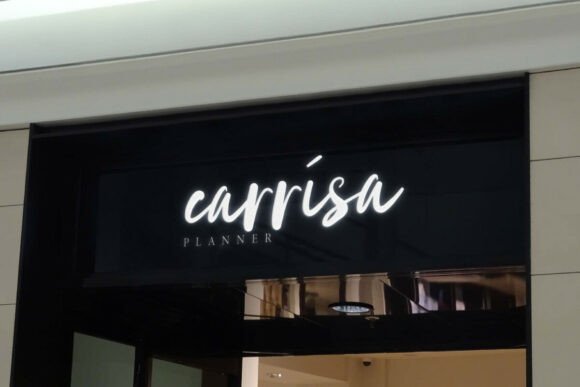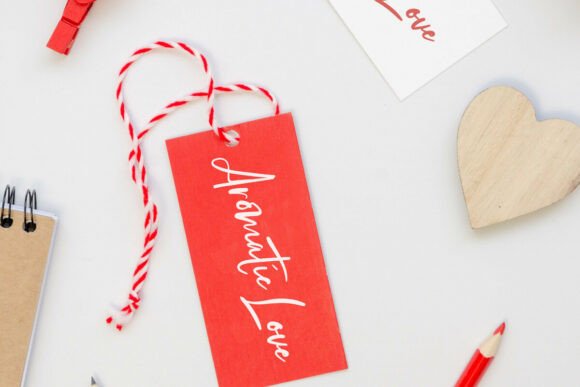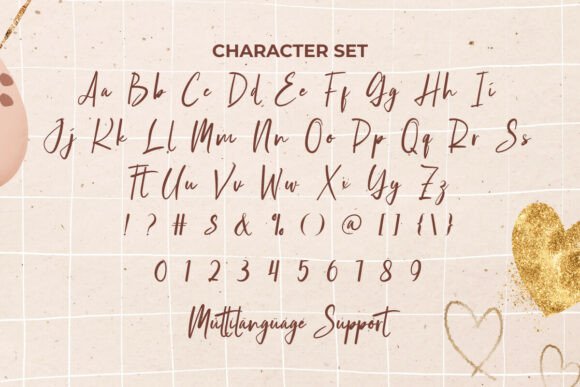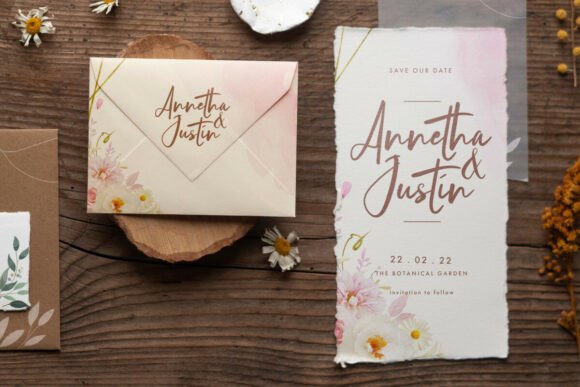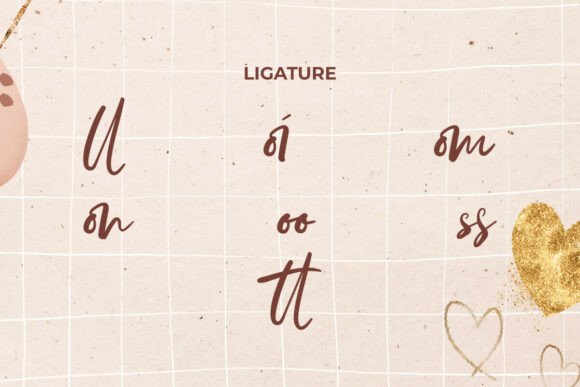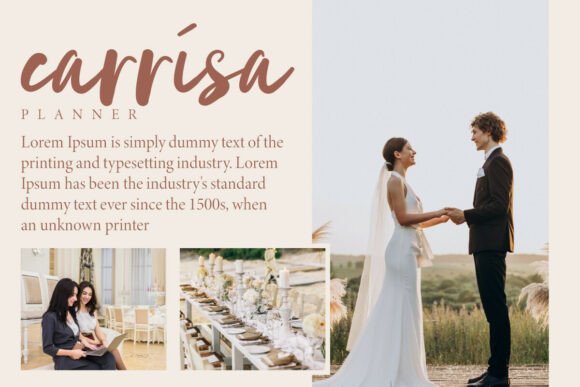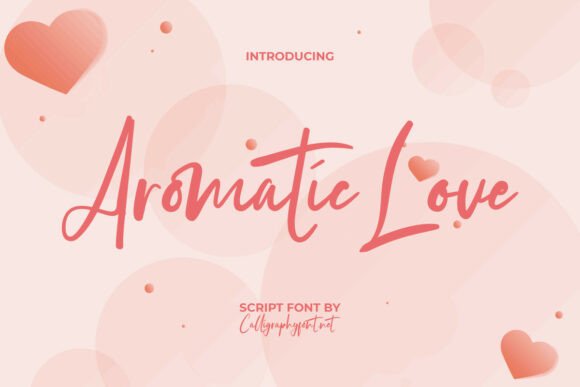
Aromatic Love Font: Elevate Your Brand with Elegant Typography
In the world of design, typography plays a crucial role in conveying the tone and personality of a brand. For crafters, small business owners, and creative entrepreneurs, finding the perfect font can be a daunting task. That’s where Aromatic Love Font comes in – a lovely, elegant script font that exudes sophistication and style.
What is Aromatic Love Font?
Aromatic Love Font is a handcrafted marker-style script font that boasts an original and unique look. Its stylish writing appearance makes it perfect for a wide range of creative businesses, from accessories and boutiques to cafes, event organizers, and wedding planners. This versatile font is designed to add a touch of elegance and refinement to any brand.
Key Features of Aromatic Love Font
- Handcrafted marker style: Aromatic Love Font features an original, handcrafted marker style that gives it a personal and unique touch.
- Elegant script: The font’s elegant script design makes it perfect for brands that want to convey sophistication and refinement.
- Versatile: Aromatic Love Font is suitable for a wide range of creative businesses, from fashion and beauty to food and lifestyle.
- Stunning typography: The font’s beautiful typography is sure to elevate any brand’s visual identity.
Who Can Benefit from Aromatic Love Font?
Aromatic Love Font is perfect for:
- Accessories and jewelry businesses: Add a touch of elegance to your brand’s packaging and marketing materials.
- Boutiques and fashion stores: Create stunning signage, flyers, and social media graphics with Aromatic Love Font.
- Cafes and restaurants: Elevate your brand’s menu, website, and marketing materials with this beautiful font.
- Event organizers and wedding planners: Create stunning invitations, programs, and signage with Aromatic Love Font.
- Florists and gardeners: Add a touch of elegance to your brand’s packaging, website, and marketing materials.
- Furniture and home decor businesses: Create stunning catalogs, flyers, and social media graphics with Aromatic Love Font.
- Skincare and spa businesses: Elevate your brand’s packaging, website, and marketing materials with this beautiful font.
- Salons and beauty businesses: Create stunning signage, flyers, and social media graphics with Aromatic Love Font.
- Printing and publishing companies: Use Aromatic Love Font to create stunning book covers, magazines, and other publications.
- Writers and authors: Add a touch of elegance to your book covers, website, and marketing materials.
Why Choose Aromatic Love Font?
In today’s competitive market, standing out from the crowd is crucial. Aromatic Love Font offers a unique and elegant solution for businesses looking to elevate their brand’s typography. Here are just a few reasons why you should choose Aromatic Love Font:
- Unique and original design: Aromatic Love Font features a one-of-a-kind design that will set your brand apart.
- Elegant and sophisticated: The font’s elegant script design conveys refinement and sophistication.
- Versatile and flexible: Aromatic Love Font is suitable for a wide range of creative businesses and applications.
In conclusion, Aromatic Love Font is a stunning, elegant script font that is perfect for creative businesses looking to elevate their brand’s typography. With its unique and original design, elegant script, and versatility, this font is sure to impress. Whether you’re a designer, crafter, or small business owner, Aromatic Love Font is a great choice for anyone looking to add a touch of sophistication and refinement to their brand.